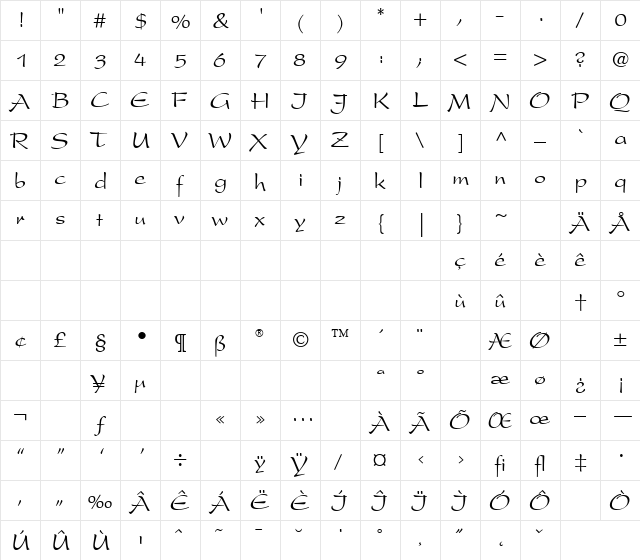
Present Regular
Design Context for Present Typeface
Present is a composed and adaptable typeface that performs quietly and consistently across a wide range of design contexts.